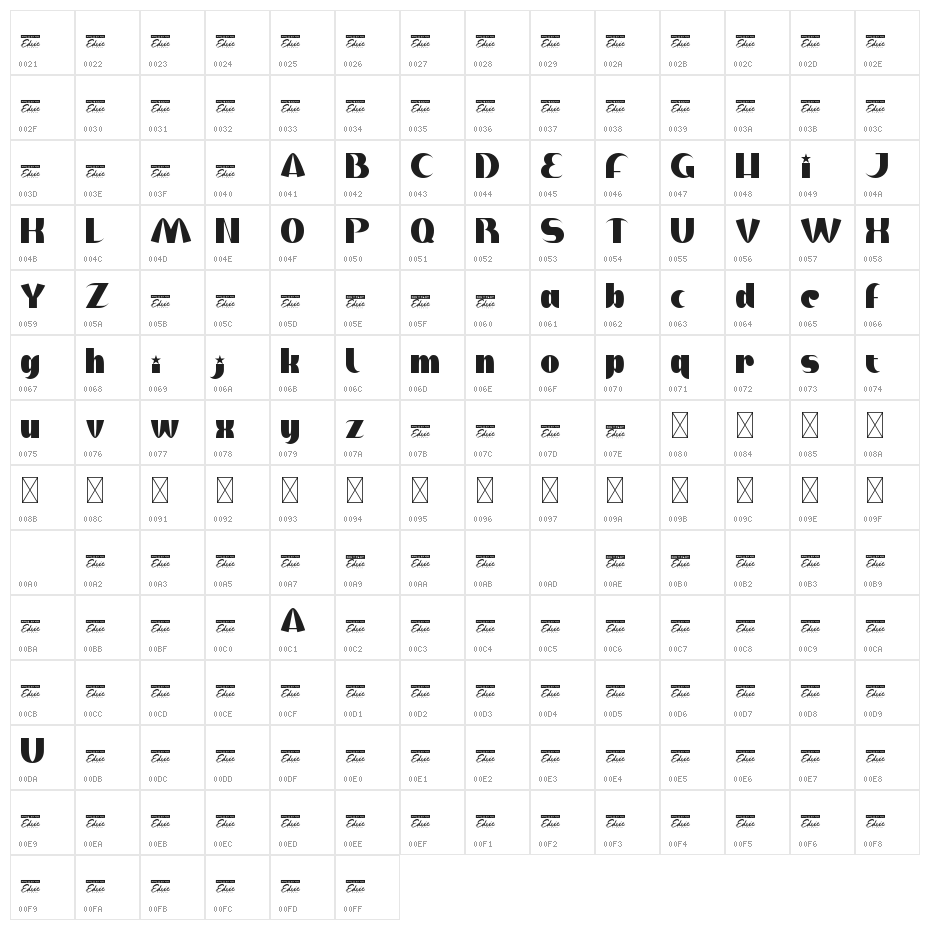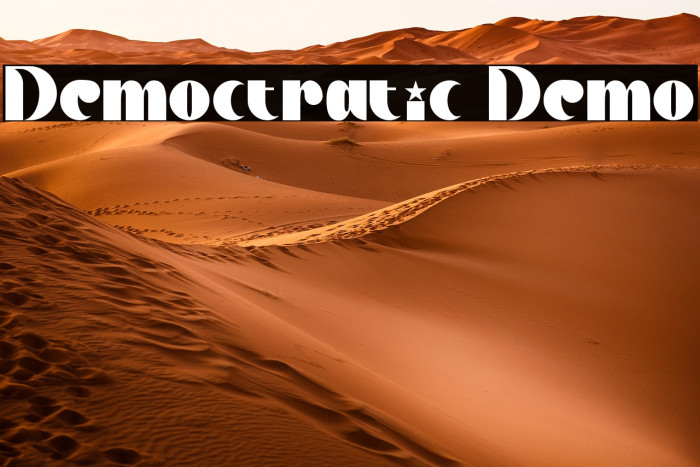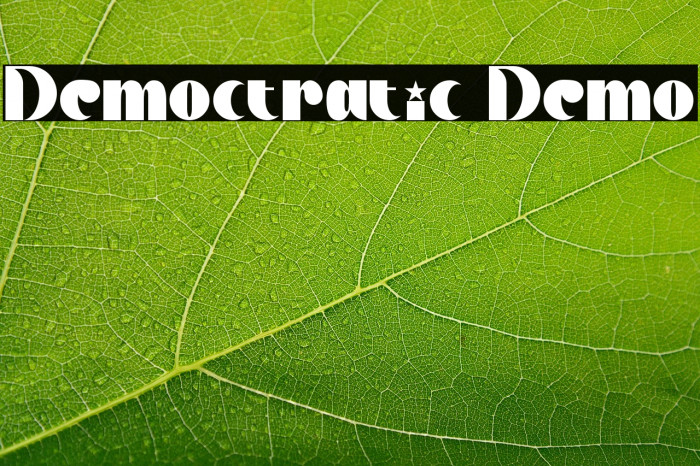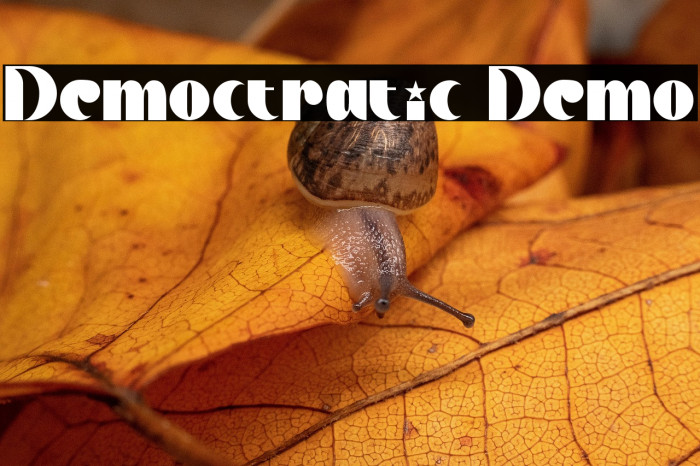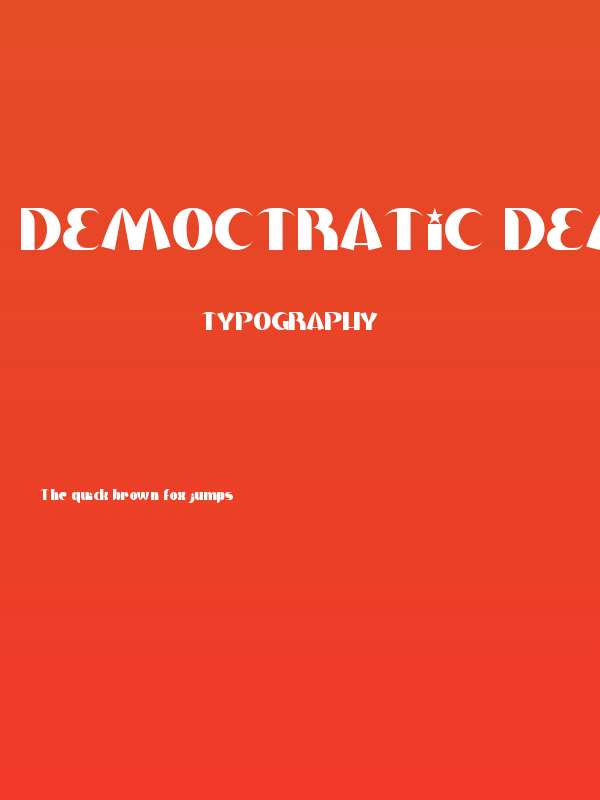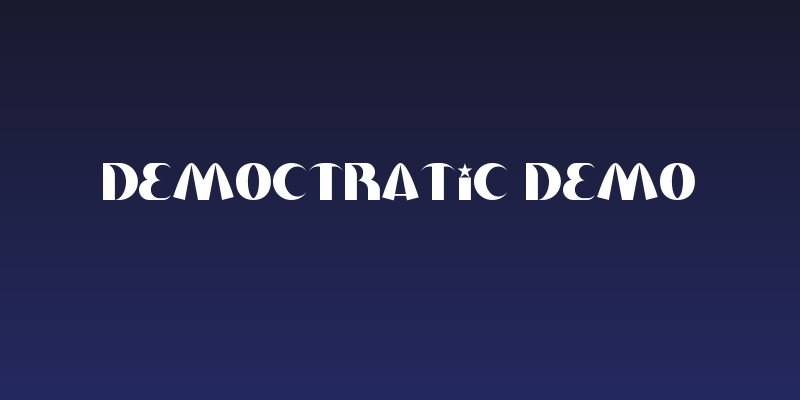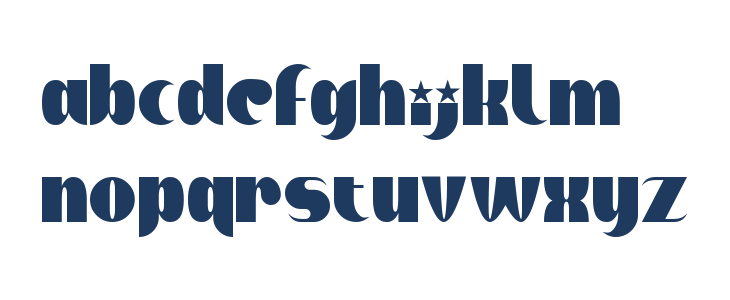
Democtratic Demo Font
Democtratic Demo Description
This font features a bold, decorative style with high contrast between thick and thin strokes. The uppercase letters are characterized by sharp, angular serifs and unique embellishments, such as stars within the letters. The lowercase letters maintain a similar boldness, with rounded forms that contrast with the angular uppercase. The font includes a set of numerals and special characters, which follow the same stylistic cues. Its distinct appearance makes it suitable for eye-catching designs and creative projects.
| Proposed Projects | Ideal for posters, branding, headlines, and creative design projects that require a standout and artistic touch. |